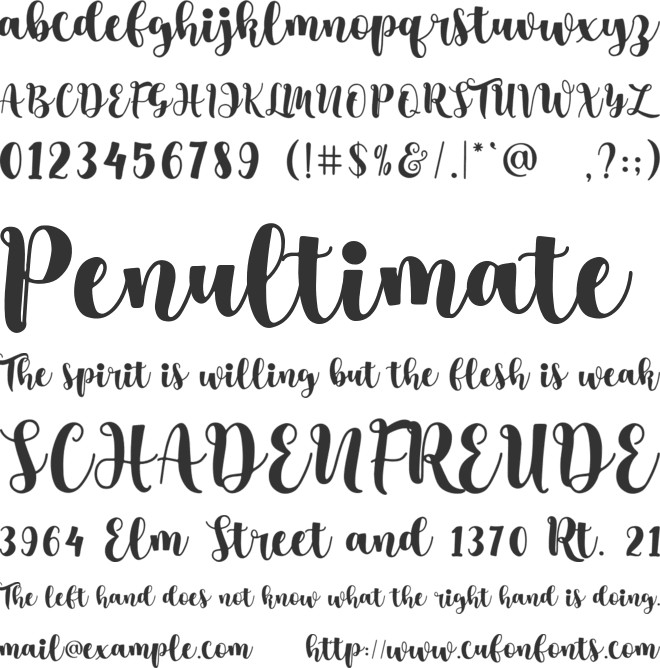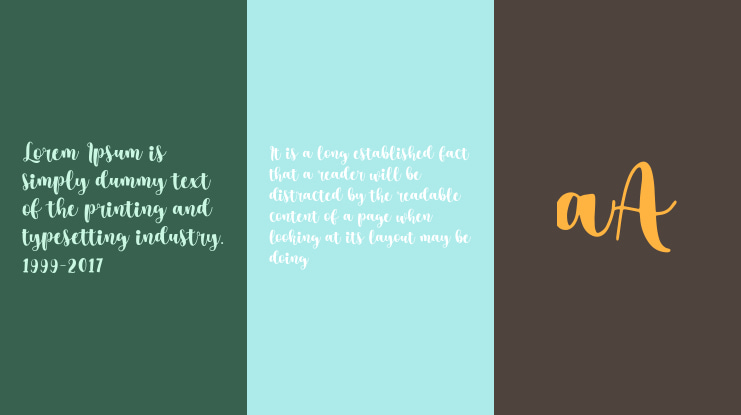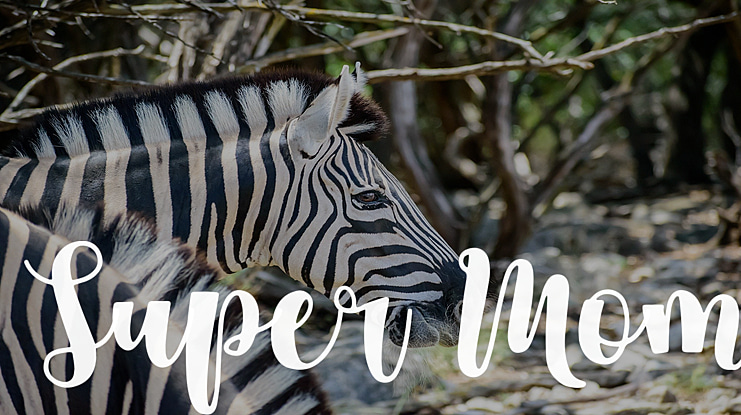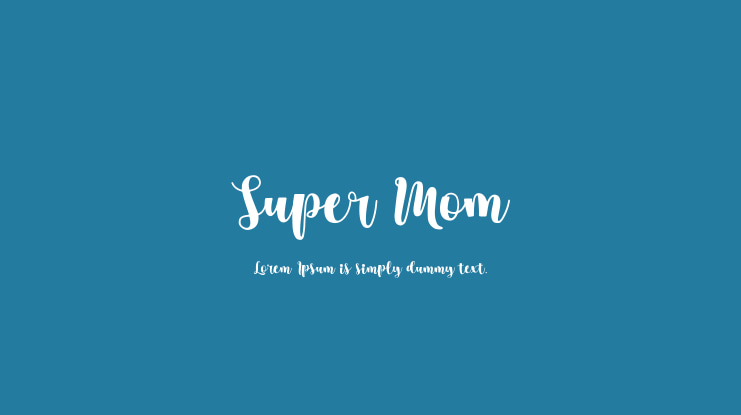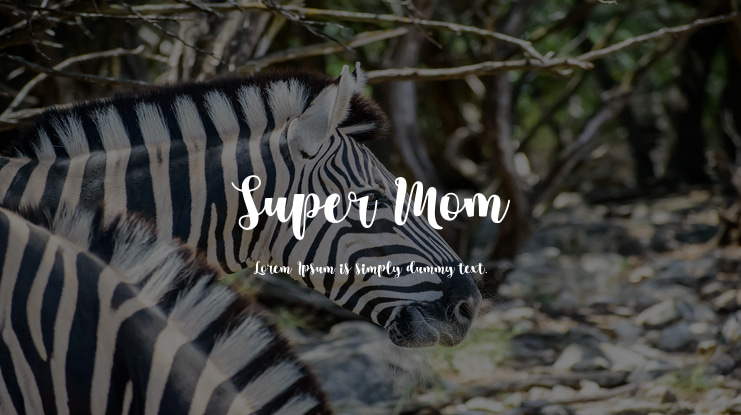
Super Mom Font
Super Mom is a cool, romantic, delicate and round lettered script font. It can be used for various design ideas that require a delicate and beautiful touch. Fall in love with its incredibly versatile style and use it to create spectacular designs!